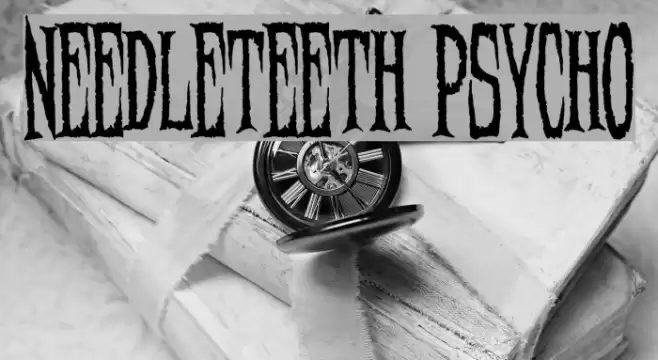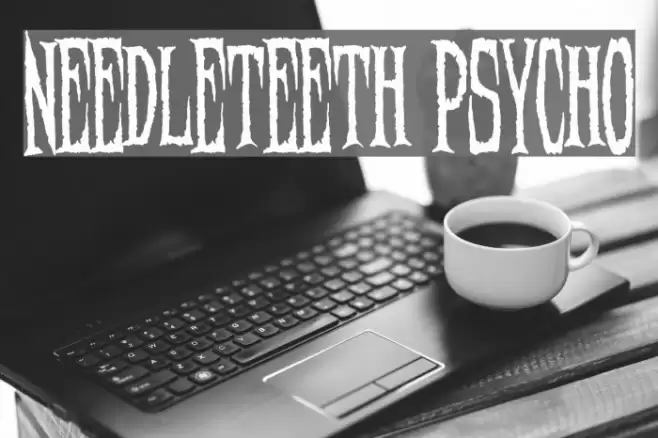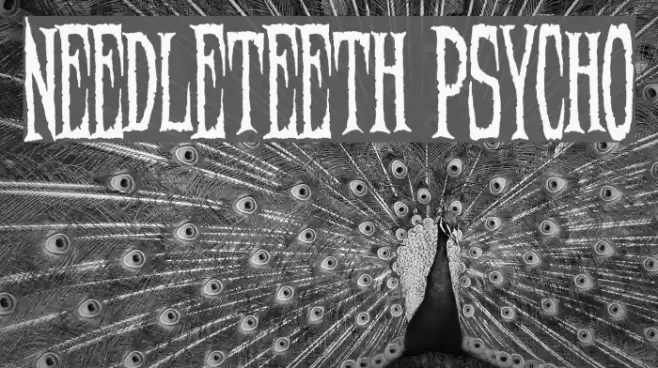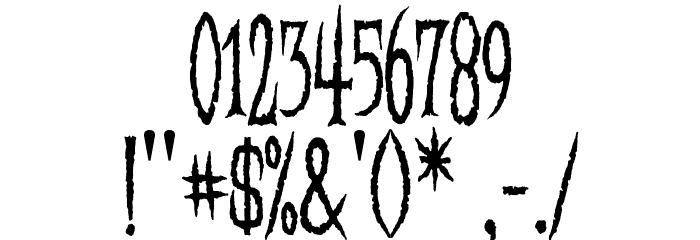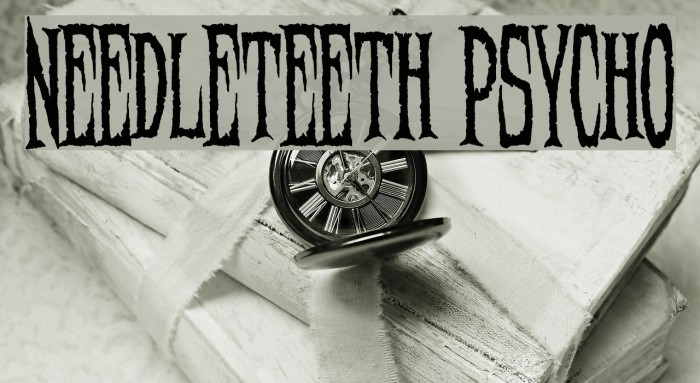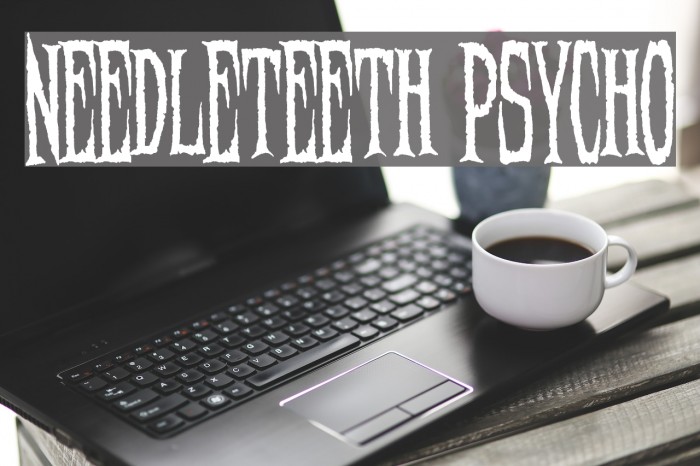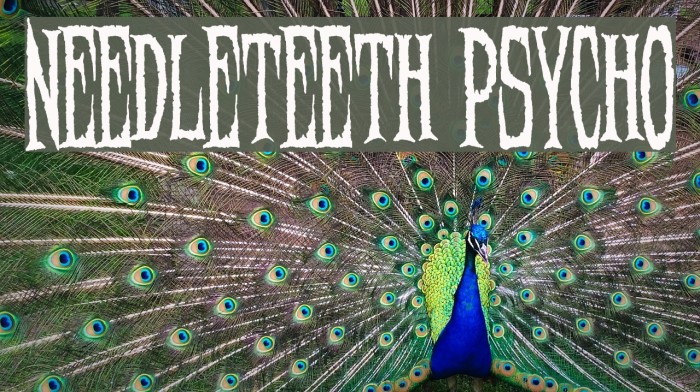
Needleteeth Psycho Font
Needleteeth Psycho Description
This font features an edgy, jagged design that evokes a sense of intensity and drama. The characters are elongated and sharp, with irregular edges that create a chaotic yet artistic appearance. The uppercase and lowercase letters maintain a consistent style, emphasizing the font's unique personality. Numbers and special characters are equally distinctive, contributing to the overall bold and striking aesthetic. This font is ideal for projects that require a touch of the unconventional or a hint of the macabre.
A sharp, jagged font with an intense, dramatic style from Drippy fonts.
- Proposed Projects: Perfect for horror-themed posters, edgy album covers, or any design needing a dramatic flair.
- Character Spacing: Tight